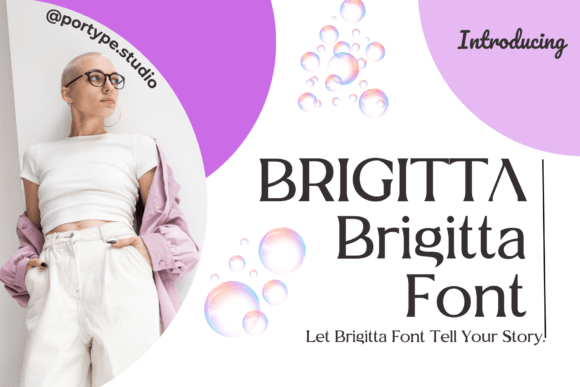
Unlocking Modern Design with Brigitta Font
I still remember the frustration of working on a project, pouring my heart and soul into every detail, only to be held back by a font that just didn’t feel right. The client wanted something bold, yet elegant; industrial, yet fashion-forward. It was a tall order, but I knew there had to be a typeface out there that could deliver. That’s when I discovered Brigitta Font, a game-changing design asset that has since become a staple in my creative toolkit.
A Closer Look at Brigitta Font
Brigitta Font is more than just a typeface; it’s a design statement. With its **bold lines**, **sleek curves**, and **captivating styles**, it seamlessly blends robust industrial aesthetics with chic, fashion-forward elements. This versatility makes it an ideal choice for a wide range of projects, from industrial logos and sleek fashion magazines to dynamic product packaging.
What I Love About Brigitta Font
• ✨ Versatility: Brigitta Font shines in its ability to adapt to various design needs, making it a go-to for both industrial and fashion projects.
• ✅ Ease of Use: Its user-friendly design makes it easy to incorporate into any project, regardless of the platform you’re using.
• 💡 Innovative Style: The font’s unique blend of industrial and fashion elements brings a fresh perspective to any design.
While Brigitta Font is incredibly versatile, there are a few things to keep in mind:
• ⚠️ Legibility at Small Sizes: Like many bold fonts, legibility can be an issue at very small sizes. It’s best used at larger sizes where its details can truly shine.
• 🤔 Pairing with Other Fonts: Due to its bold nature, it works best as a headline font. Pairing it with a simpler font for body text can create a nice balance.
The Backstory of Brigitta Font
The story behind Brigitta Font begins with a designer who sought to merge the starkness of industrial design with the elegance of fashion typography. Inspired by the urban landscape and high-end fashion magazines, Brigitta Font was crafted to embody the perfect blend of strength and sophistication. The designer’s vision was to create a typeface that could stand alone in industrial projects yet seamlessly fit into the world of fashion, making Brigitta Font a unique addition to any designer’s arsenal.
Q: What makes Brigitta Font unique?
A: Brigitta Font’s unique blend of industrial robustness and fashion-forward elegance sets it apart, making it versatile for various design projects.
Q: Is Brigitta Font suitable for digital use?
A: Absolutely! Brigitta Font’s clear lines and modern aesthetic make it highly legible and effective for digital platforms, alongside print.
Brigitta Font is more than just a typeface; it’s a key to unlocking a world of design possibilities. Its unique blend of industrial strength and fashion elegance makes it an invaluable asset for designers looking to make a statement. Whether you’re crafting a bold industrial logo or a sleek fashion magazine, Brigitta Font empowers you to redefine your creative vision and bring your designs to life with unparalleled sophistication and innovation.